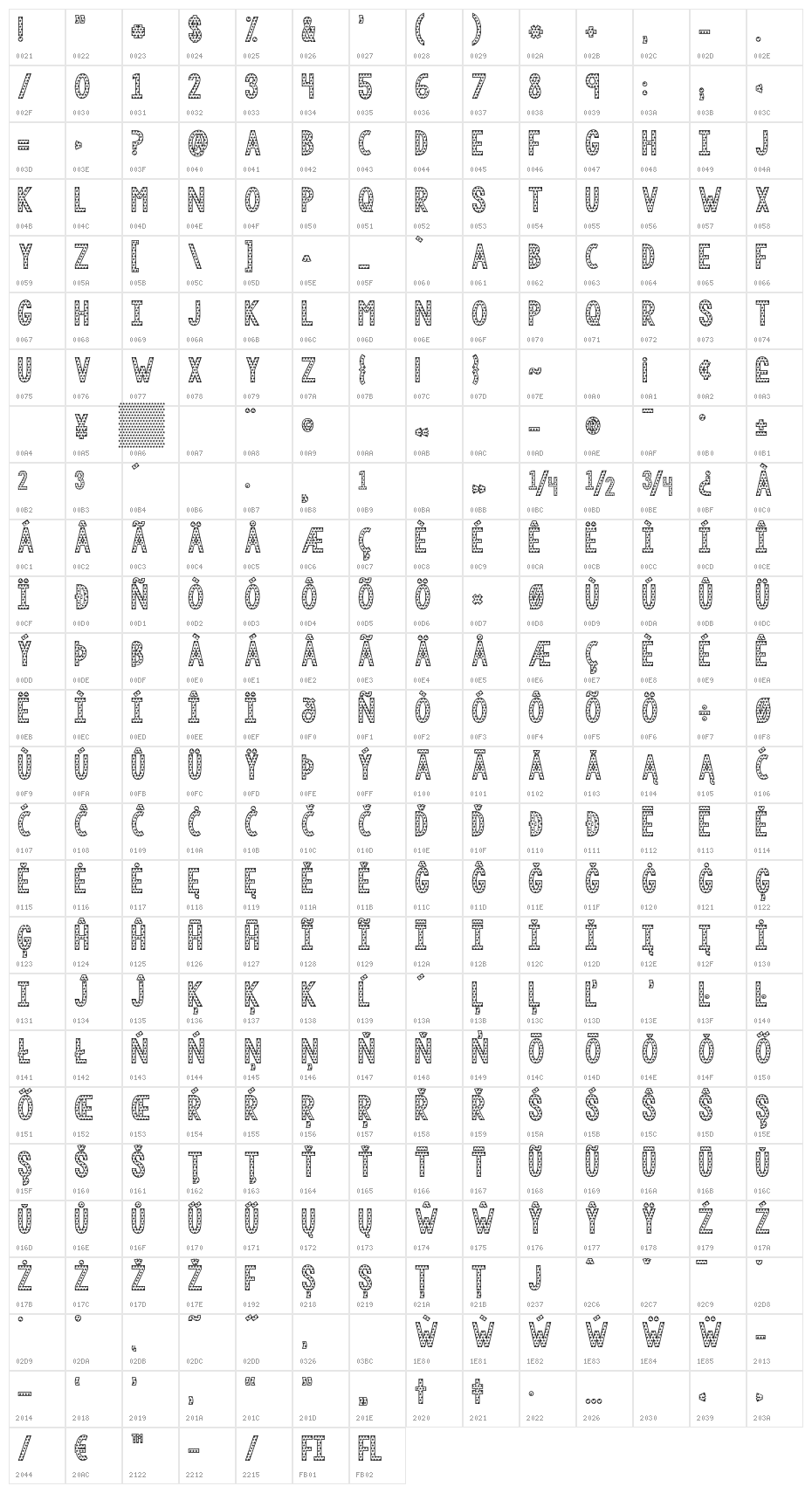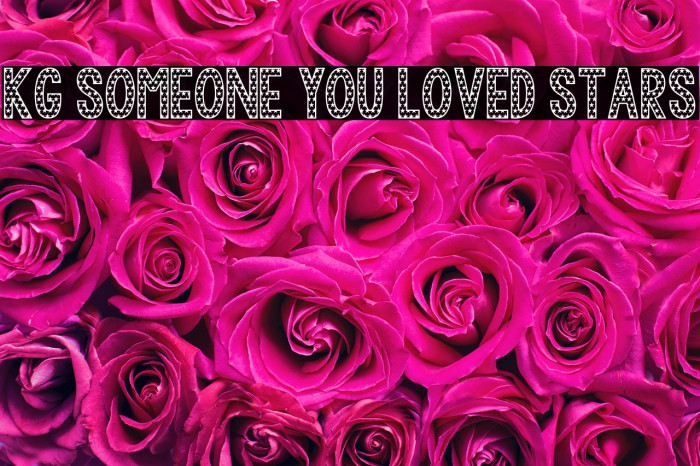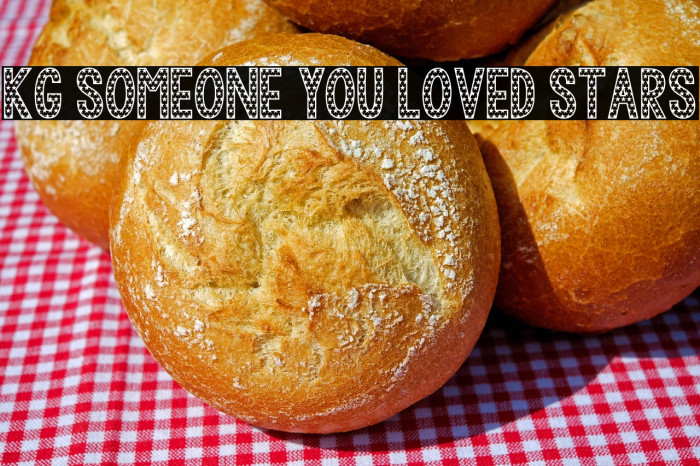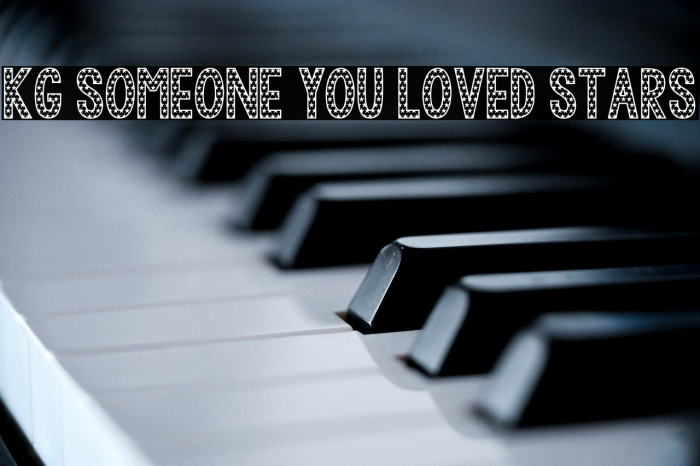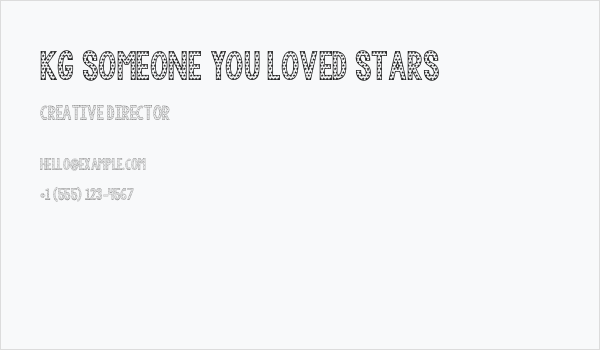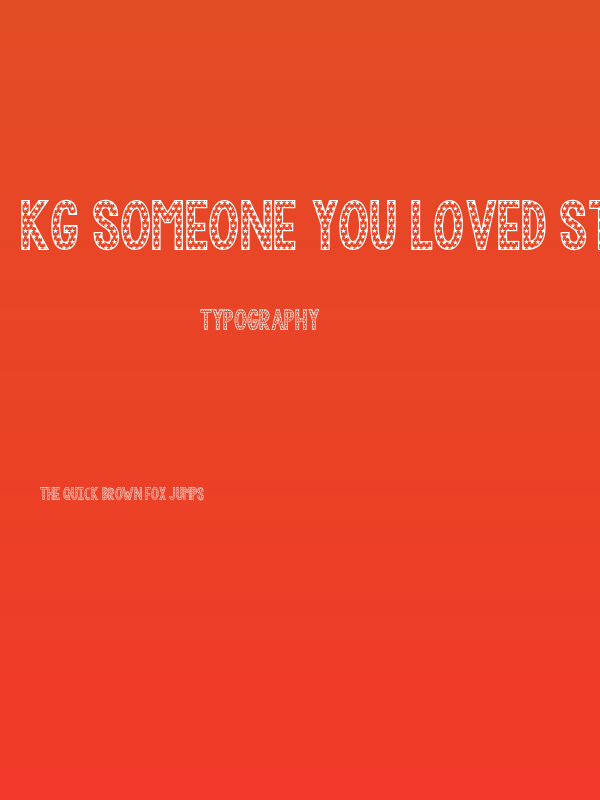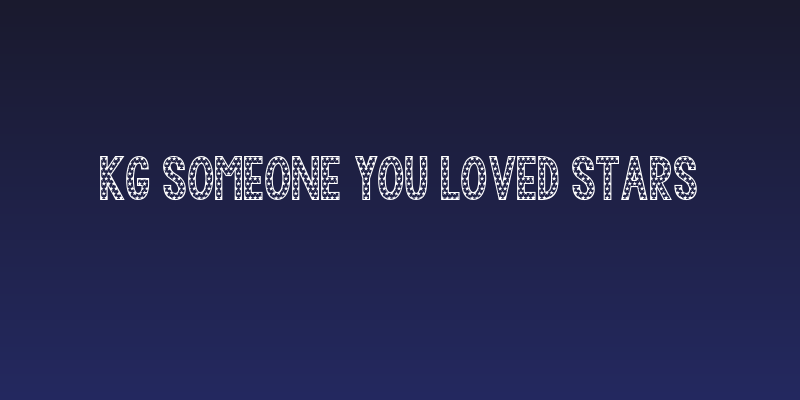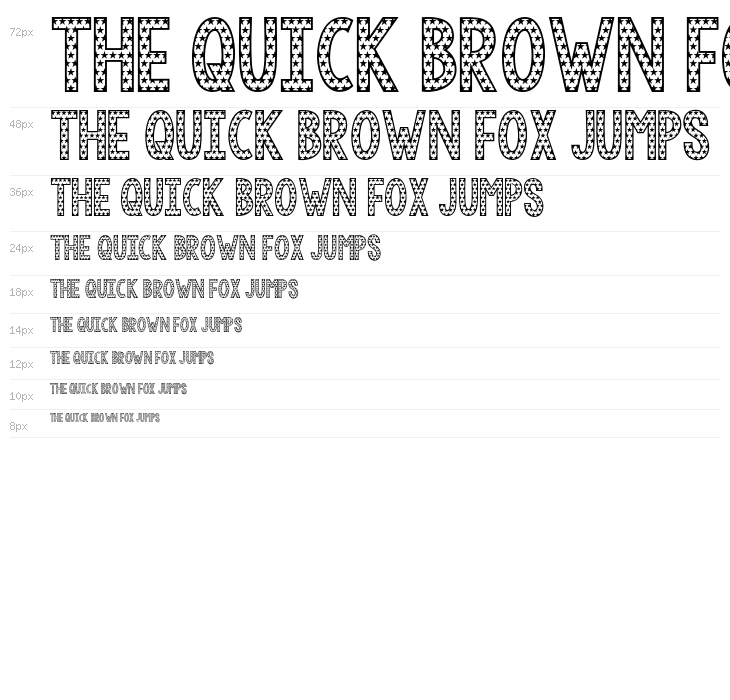
KG Someone You Loved Stars Font
KG Someone You Loved Stars Description
This font features bold, uppercase and lowercase letters, numbers, and special characters filled with a pattern of stars. The characters are outlined with a thick black border, giving them a distinct and eye-catching appearance. The star-filled design within each character adds a playful and decorative touch, making it ideal for projects that require a fun and whimsical style. The font maintains a consistent width and spacing, ensuring readability while still being visually engaging. Its unique design makes it suitable for creative and informal applications.
| Use Case | Headlines, Posters, Invitations |
| Proposed Projects | Ideal for children's book covers, party invitations, posters, and any project that requires a fun and decorative typeface. |